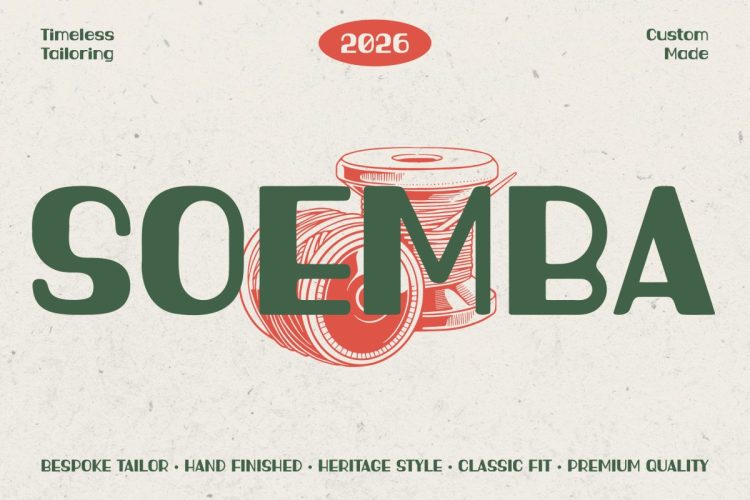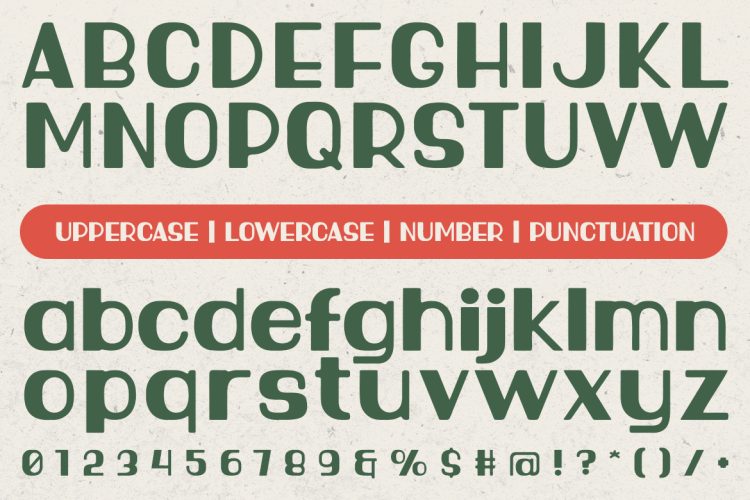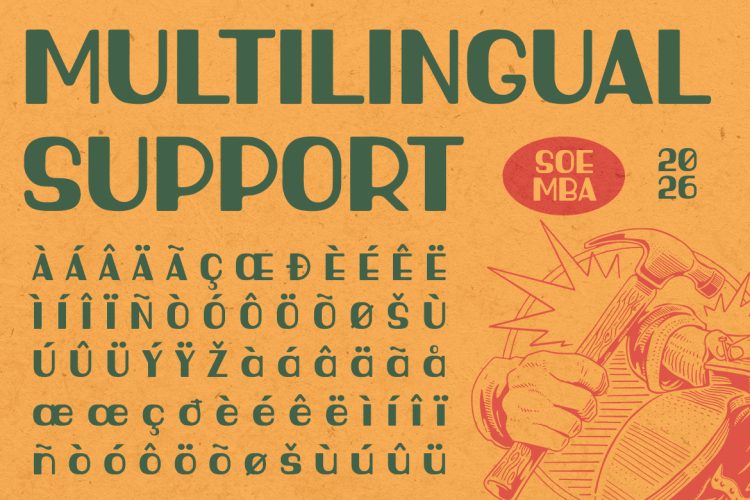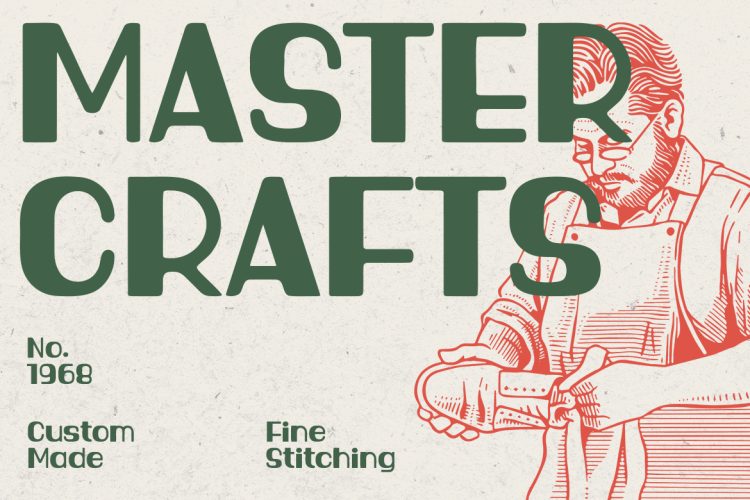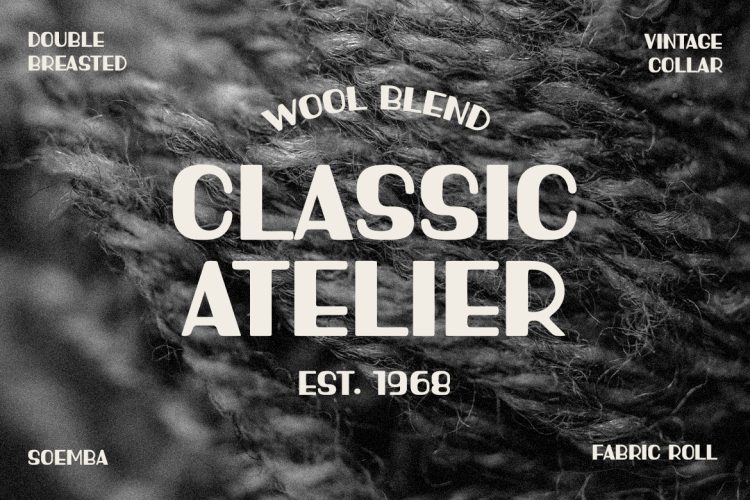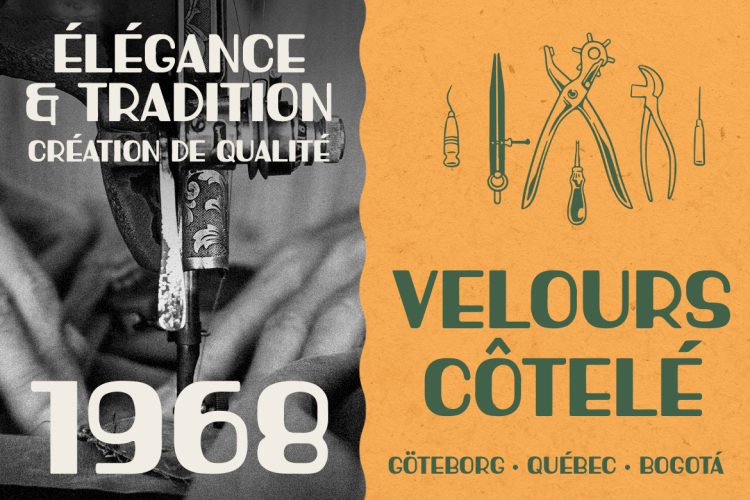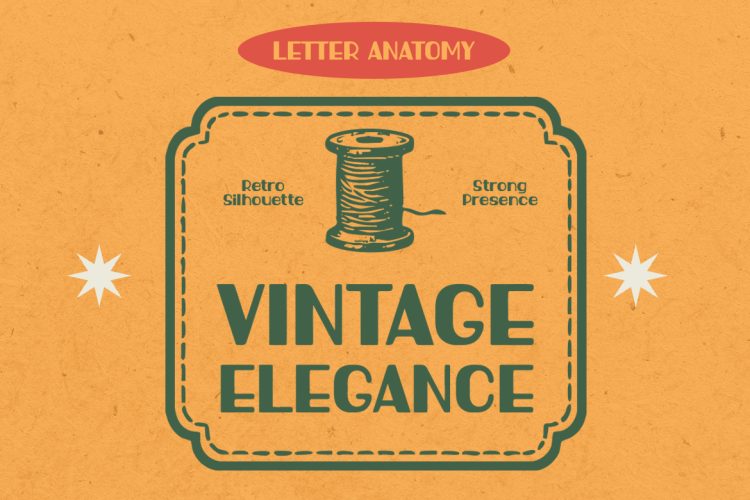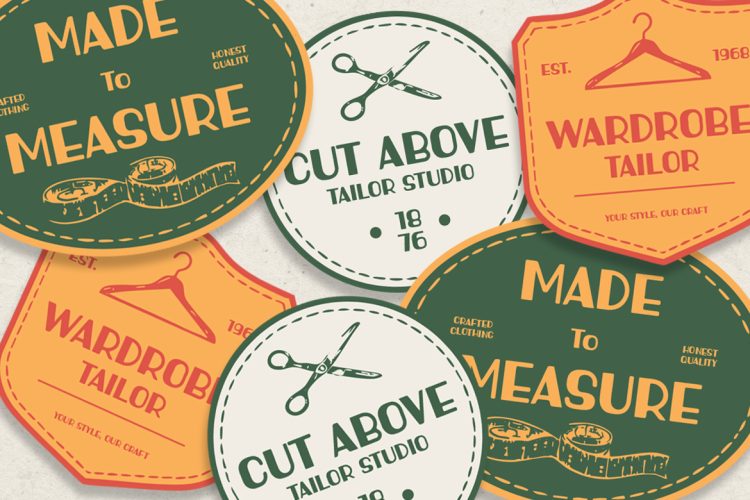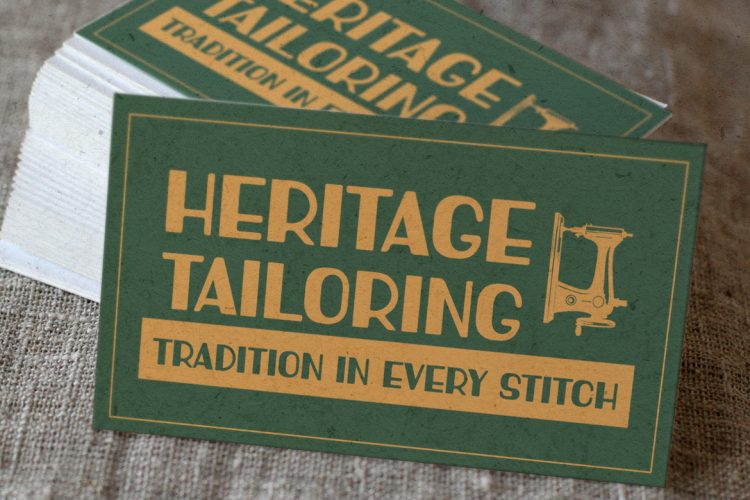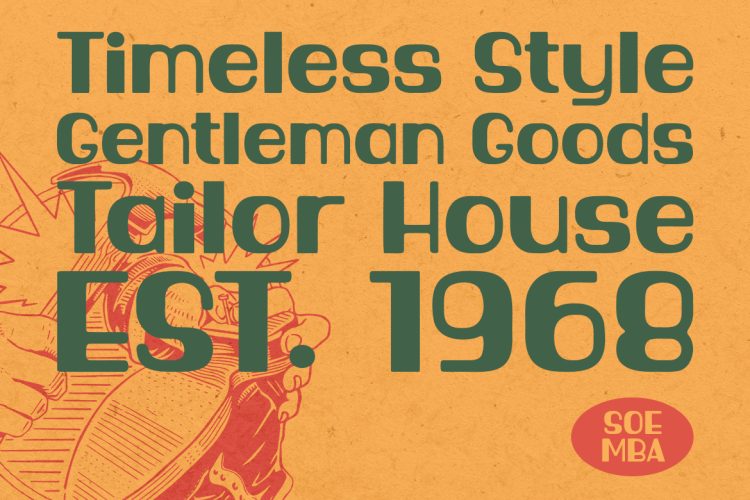
SOEMBA โ Classic Heritage Display Font for Authentic Vintage Branding
Vintage Font SOEMBA captures the timeless charm of handcrafted craftsmanship. It features bold vintage letterforms, balanced proportions, and refined retro details. Moreover, its sturdy design creates a strong visual presence without losing readability. Every character reflects authentic heritage style with a clean, professional finish. As a result, your branding feels memorable, trustworthy, and full of classic character.
Why You’ll Love It
Additionally, Vintage Font SOEMBA is made for designers who value tradition and versatility. Whether you’re designing artisan packaging, vintage logos, rustic signage, or premium labels, this font delivers a distinctive look. Furthermore, it blends effortlessly with modern and retro layouts. Besides that, its clear structure works beautifully in both print and digital projects. Multilingual Support for 67 languages helps you reach audiences worldwide. Therefore, your designs stay consistent, professional, and globally accessible.
Vintage Font SOEMBA Perfect For
Heritage brands, tailor shops, coffee roasters, whiskey labels, leather goods, vintage cafรฉs, artisan bakeries, craft breweries, outdoor brands, apparel labels, rustic packaging, retro signage, merchandise, editorial covers, and handcrafted product branding.
Build a Brand That Never Goes Out of Style